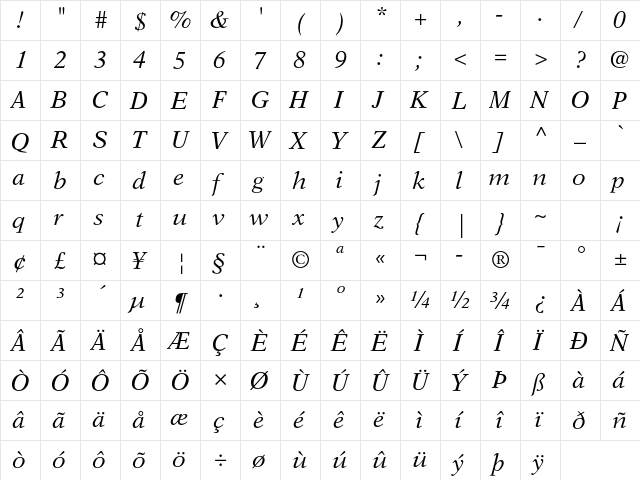
New Aster LT Std Italic Font Preview
| Designer | Francesco Simoncini |
Design Context for New Aster LT Std Typeface
New Aster LT Std takes a measured approach to typography — its balanced proportions and neutral character make it a reliable workhorse for both digital and print work. The dynamic lean of this cut emphasises speed and emphasis in any layout. Its slender proportions lend an understated elegance to any composition.
Pro Tip: Use New Aster LT Std for emphasis, pull quotes, and subheadings where its slanted energy can add rhythm to the layout.